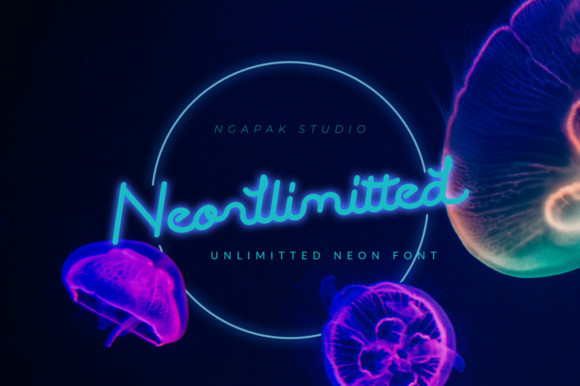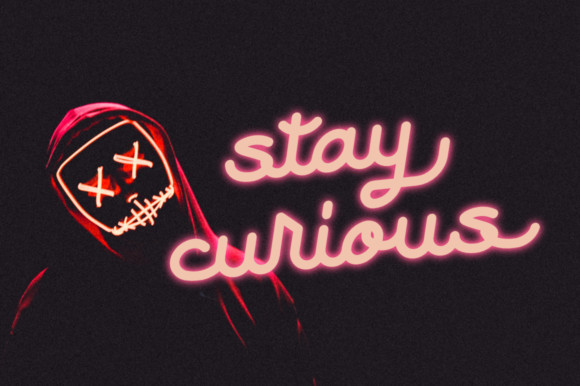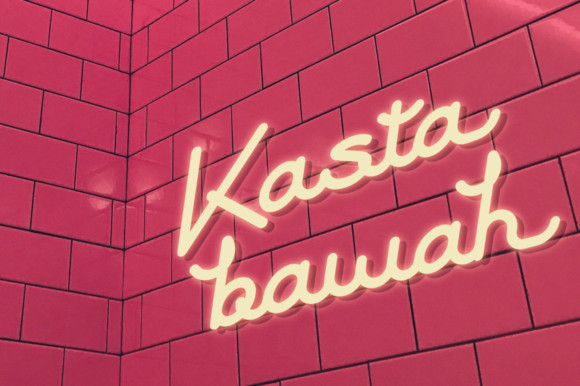
Neonllimitted Font
Neonllimitted is a minimal and neat handwritten font. It can easily be matched to an incredibly large set of projects, so add it to your creative ideas and notice how it makes them stand out!